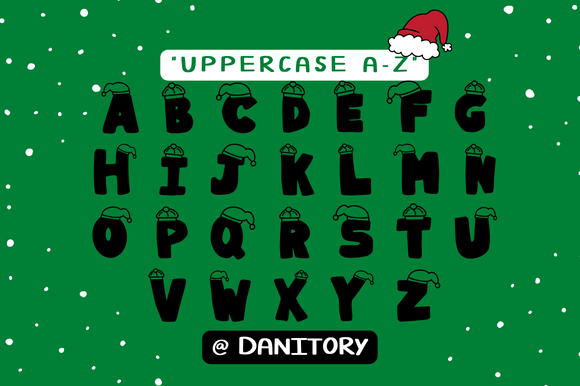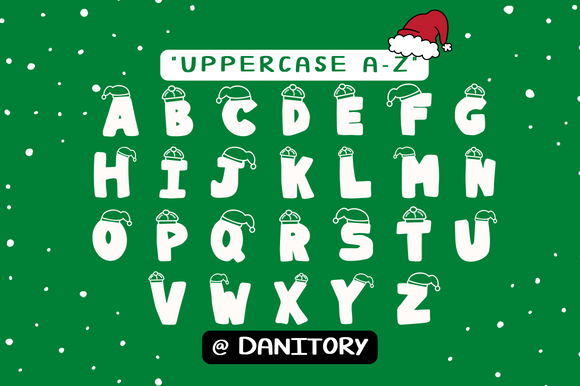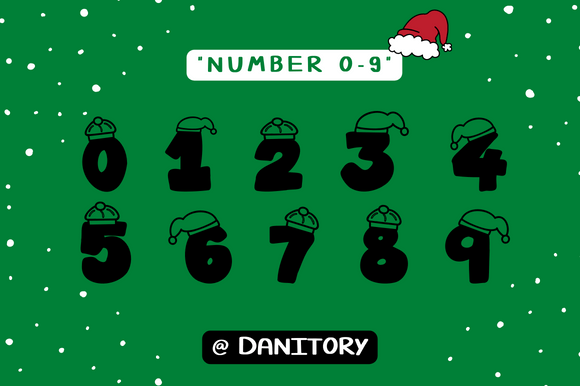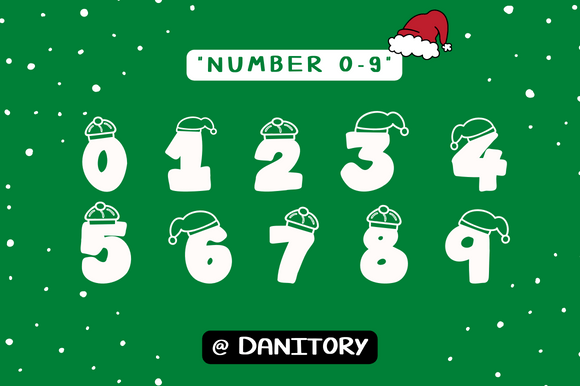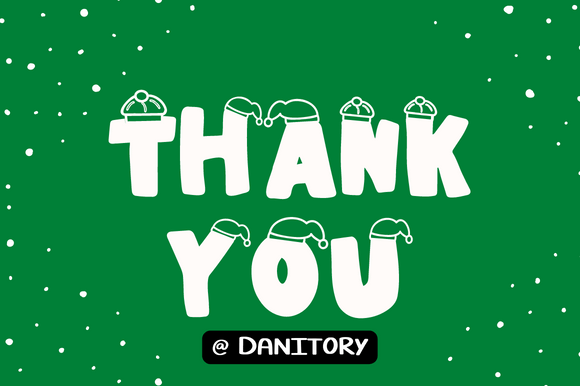
Introduction to Santa Hat Letters Font
Santa Hat Letters is a cute all-caps decorative font designed for the upcoming Christmas season.
Add it to your festive crafty ideas and you will be amazed by the outcome generated .
Key Features of Santa Hat Letters Font
Why Choose Santa Hat Letters Font?